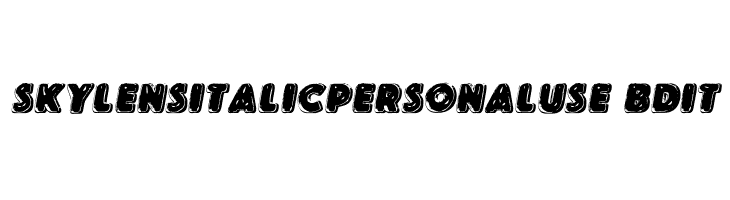
( Fonts by Billy Argel Fonts ® )
A bold, textured, and slightly italicized font with a playful and creative style.
( Fonts by Tom Chalky )
A bold, textured sans-serif font with a distressed, vintage appearance.
( Fonts by Tom Chalky )
A bold, textured font with a vintage, industrial feel.
( Fonts by Tom Chalky )
A rugged, distressed font with a vintage, industrial feel and condensed width.
( Fonts by 28fonts )
A bold, distressed font with a rugged, hand-drawn appearance.
( Fonts by Letterhend Studio )
A bold, rough-edged font with a vintage, handmade feel.
A bold, textured font with a distressed, vintage look.
( Fonts by zoeslogos )
A bold, textured font with a playful and vintage feel.
A bold, distressed font with a vintage, hand-crafted look.
A bold, distressed font with a rugged, vintage appearance.